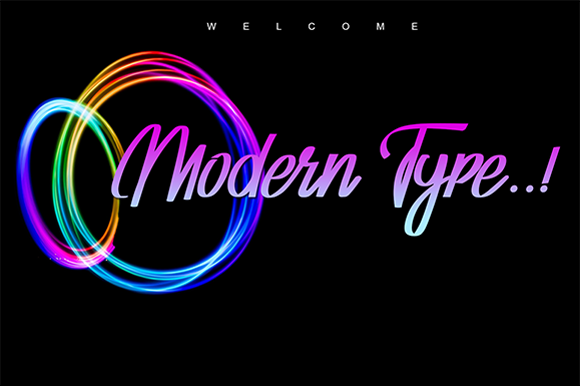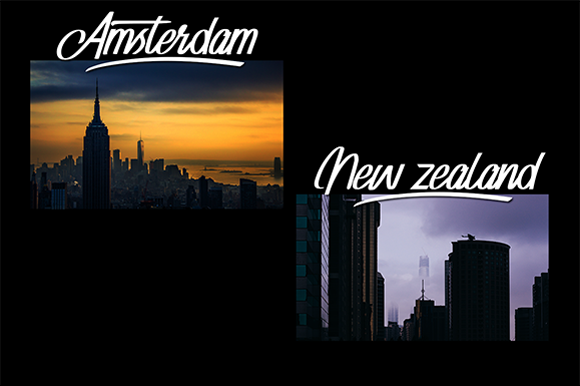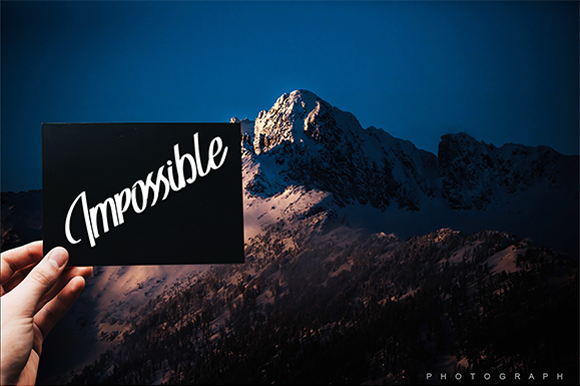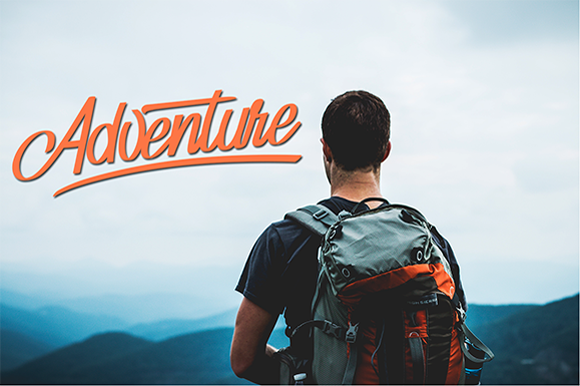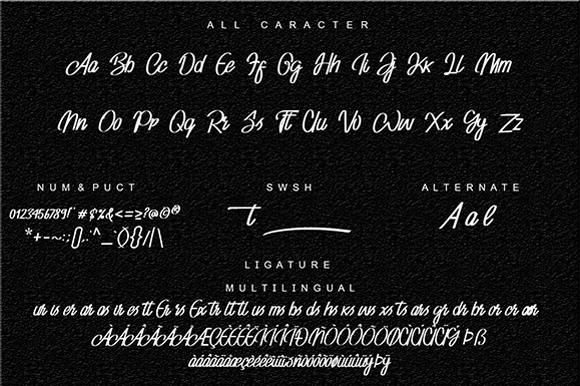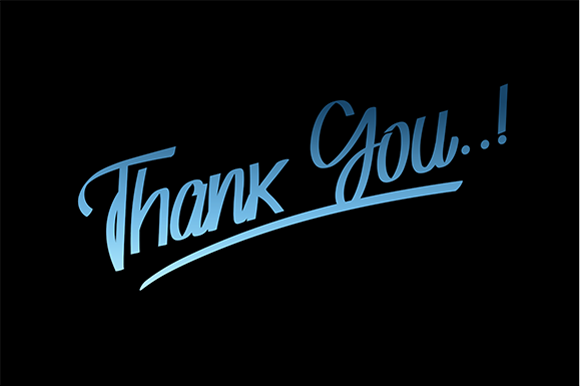
Adventure Font
About Adventure Font
Adventure is a cool, classy, modern and clean script with incredible lettering. Fall in love with its organic charm!